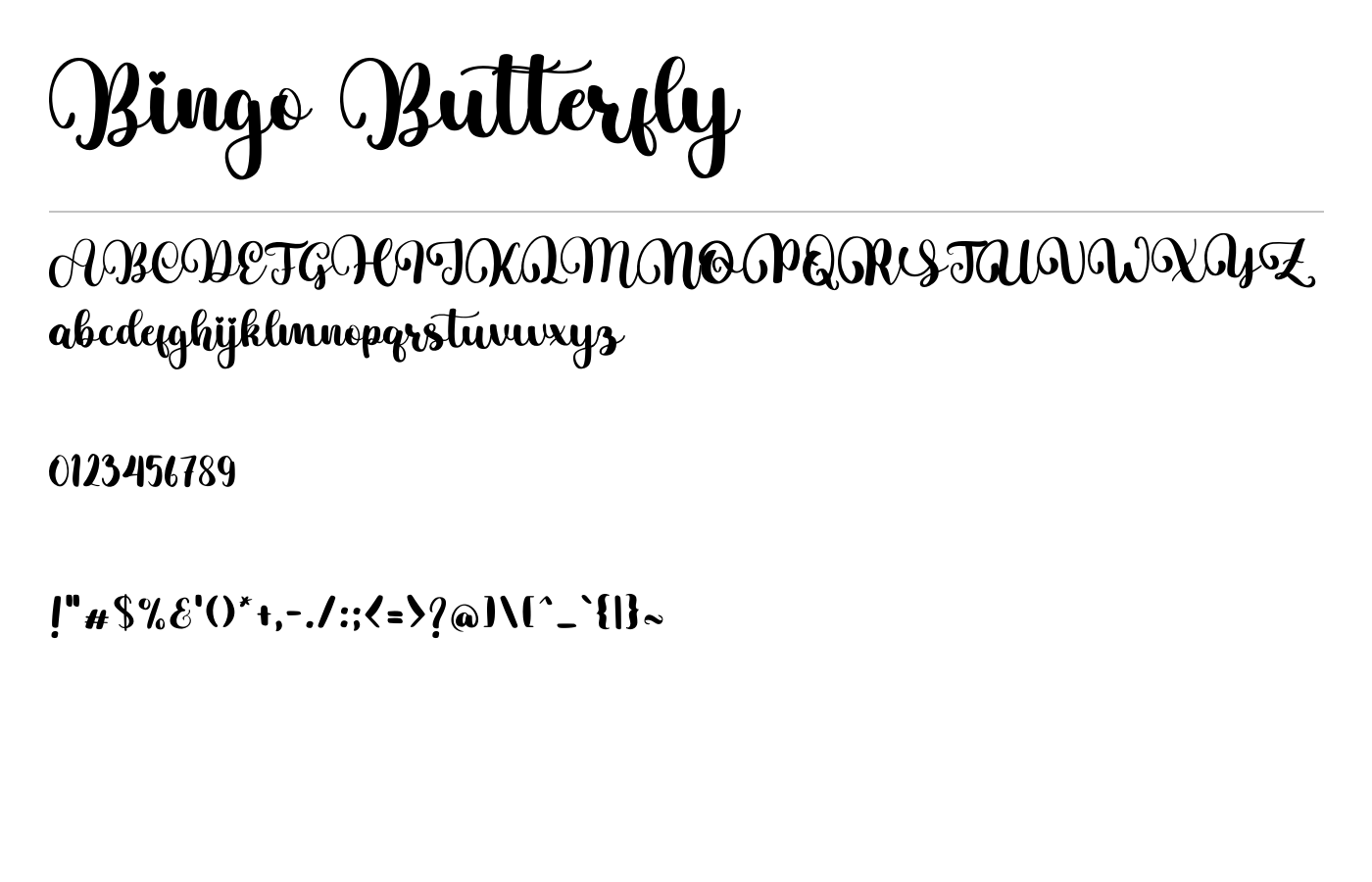
Bingo Butterfly is a charming script font with a lively, hand-lettered feel, featuring smooth, bold strokes and stylish flourishes that give it a playful yet elegant personality. Its high contrast and flowing letterforms make it perfect for eye-catching headlines, logos, and design projects that want to convey warmth, creativity, and a friendly, inviting tone. This font works especially well for fashion, branding, invitations, and any artwork where a touch of whimsy and sophistication is desired.
Bingo Butterfly Font
About Bingo Butterfly Font
| Font family | Bingo Butterfly Font |
| Release date | 2022-01-28 |
| Designer | Dian Haniffan Hadi |